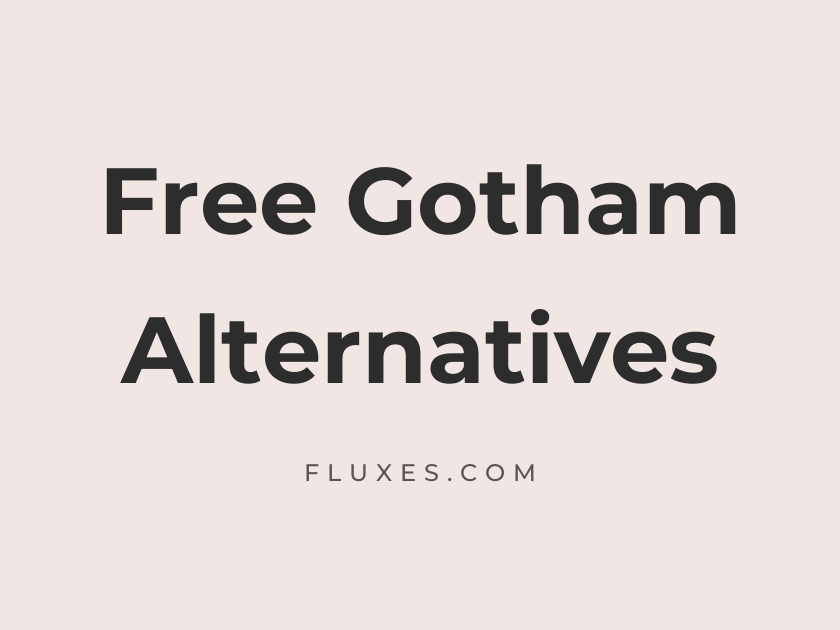
15 Best Free Fonts Alternatives to Gotham
Gotham built its reputation as the go-to geometric sans for branding, editorial layouts, and presidential campaigns alike, but its licensing fees put it out of reach for a lot of everyday projects. The good news is that Google Fonts has quietly built up a strong bench of geometric and grotesque sans-serifs that capture the same confident, structured feel without the invoice. Whether you need a free Gotham alternative for a logo, a website body font, or a poster headline, there is a genuinely solid option waiting in this list rather than a compromise.
1. Montserrat
Bold geometric shapes for modern brand identities
Montserrat is the font most designers reach for first when Gotham is off the table, and for good reason. Its circular counters and even stroke widths echo Gotham’s geometric bones closely enough to work in logos, signage, and headline type, while its huge weight range gives it far more flexibility than the original.
2. Poppins
Friendly geometric letterforms for approachable brands
Poppins leans rounder and friendlier than Gotham, built from near-perfect circles that give it a warm, approachable energy. It suits startups, wellness brands, and app interfaces that want geometric precision without feeling corporate or stiff.
3. Jost
Clean geometric type inspired by classic sans design
Jost draws from the same early-twentieth-century geometric sans tradition as Gotham and Futura, and it shows in its perfectly round bowls and low-slung crossbars. It reads as a touch more vintage and playful than Gotham, making it a good pick for editorial mastheads or packaging that wants a retro-modern edge.
4. Questrial
Precise, minimal type for confident modern statements
There is an almost architectural restraint to Questrial. Every letter feels drawn with a compass, which makes it excellent for minimalist branding and interface headings where Gotham’s structure matters more than its personality.
5. Work Sans
Versatile grotesque sans built for real interfaces
Work Sans trades pure geometry for a slightly more grounded, grotesque structure, optimized specifically for on-screen legibility at text sizes. It is a smart substitute when Gotham was being used for body copy or UI labels rather than big display headlines, and it holds up cleanly at small sizes where more decorative geometric fonts start to blur.
6. DM Sans
Low-contrast geometric sans for clean digital design
DM Sans keeps its stroke weights tight and even, giving it a tidy, businesslike composure that pairs well with data-heavy dashboards and product pages. It never draws attention to itself, which is exactly the point when the content needs to lead.
7. Raleway
Elegant geometric sans with a refined character set
Raleway shares Gotham’s geometric skeleton but adds a slightly more elegant, fashion-forward finish, especially visible in its distinctive lowercase w. It works beautifully on masthead-style headlines and invitations where a touch of sophistication is welcome.
8. Sora
Contemporary geometric type for tech-forward branding
Sora feels distinctly of the moment, with slightly squared curves that give it a crisp, engineered look. It suits SaaS products and tech branding that want the structure of Gotham with a more current, screen-native feel.
9. Outfit
Simple geometric sans for versatile brand systems
Outfit is deliberately unfussy, a workhorse geometric sans that slots into brand systems without demanding much attention of its own. That restraint is its strength; it behaves predictably across headlines, buttons, and body text alike.
10. Urbanist
Airy geometric sans with wide open counters
Urbanist opens up its counters and lets its letterforms breathe, giving it a lighter, more spacious feel than Gotham’s tighter geometry. It is a strong choice for fashion, lifestyle, and real estate branding that wants geometric confidence without heaviness.
11. Manrope
Semi-condensed geometric sans for tight modern layouts
Manrope’s slightly narrower proportions make it useful anywhere Gotham’s wider letterforms would eat up too much space, such as mobile navigation or tightly set headlines. It stays crisp and readable even when condensed into small buttons or labels.
12. Archivo
Sturdy grotesque sans for editorial and web headlines
Archivo carries more grotesque weight and less pure geometry than Gotham, but it makes up for that with sheer sturdiness. It is a dependable substitute when a project needs a workhorse headline font that can also survive as body copy without a font swap.
13. Space Grotesk
Quirky geometric sans with technical, modern character
Space Grotesk keeps the geometric bones but adds small idiosyncrasies, a slightly squared o, an offbeat g, that give it more character than Gotham ever had. It fits tech branding and editorial design that wants geometric order with a bit of personality showing through.
None of these fonts is a pixel-perfect clone of Gotham, and that is fine; each one brings its own genuine strengths to the geometric sans category while staying completely free to use. Test a handful in your actual layout, at your actual sizes, and the right substitute usually reveals itself quickly.